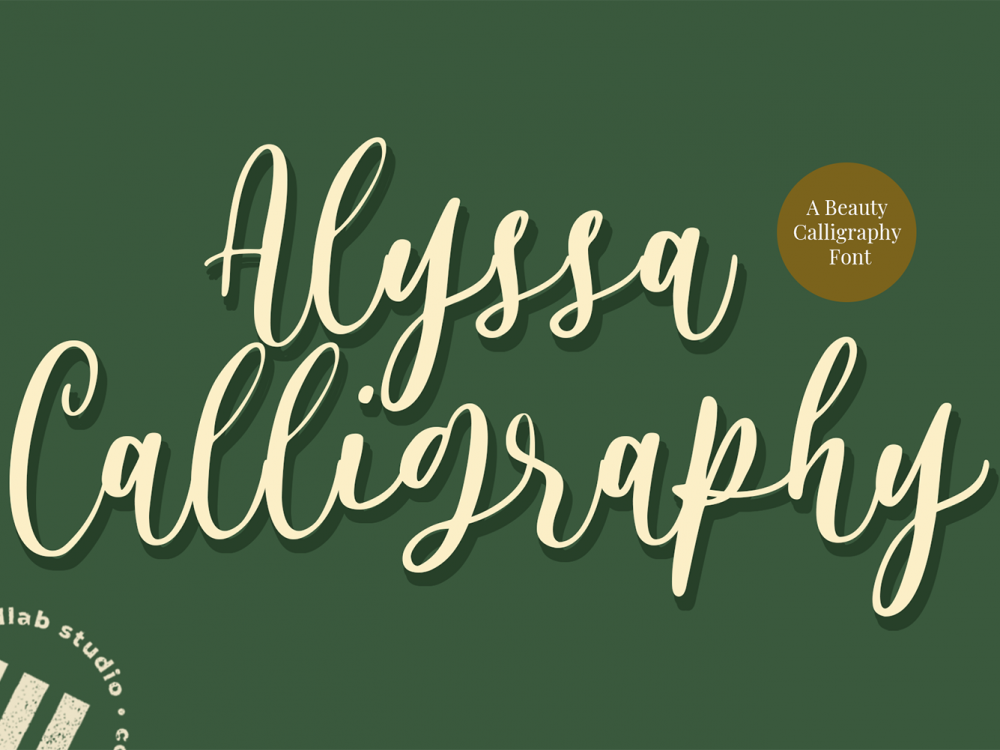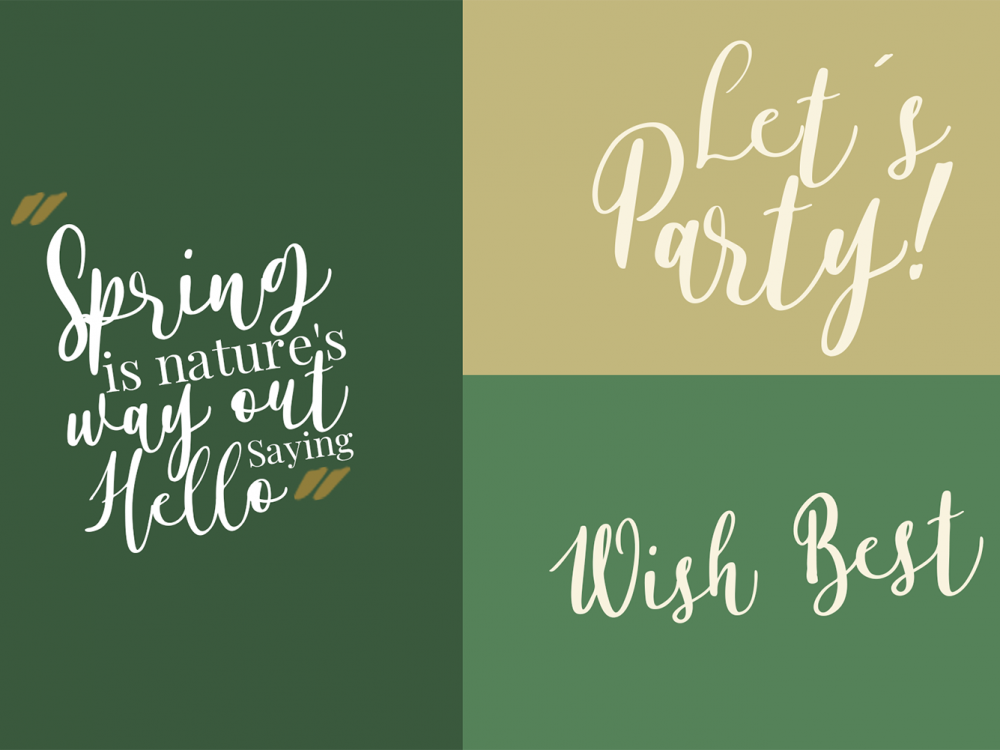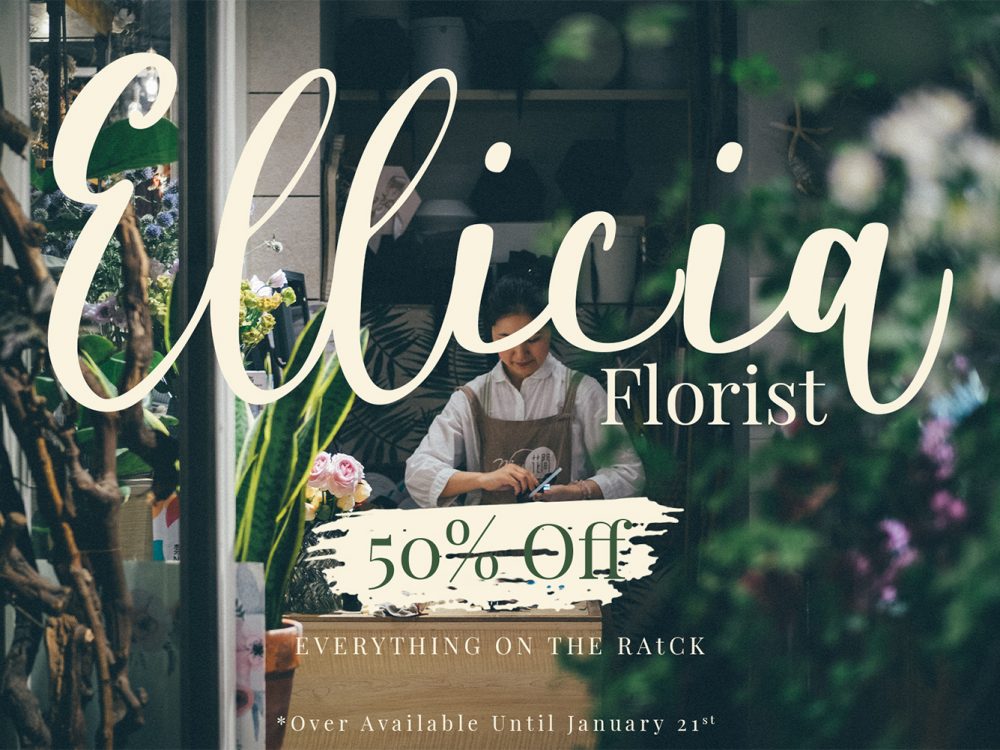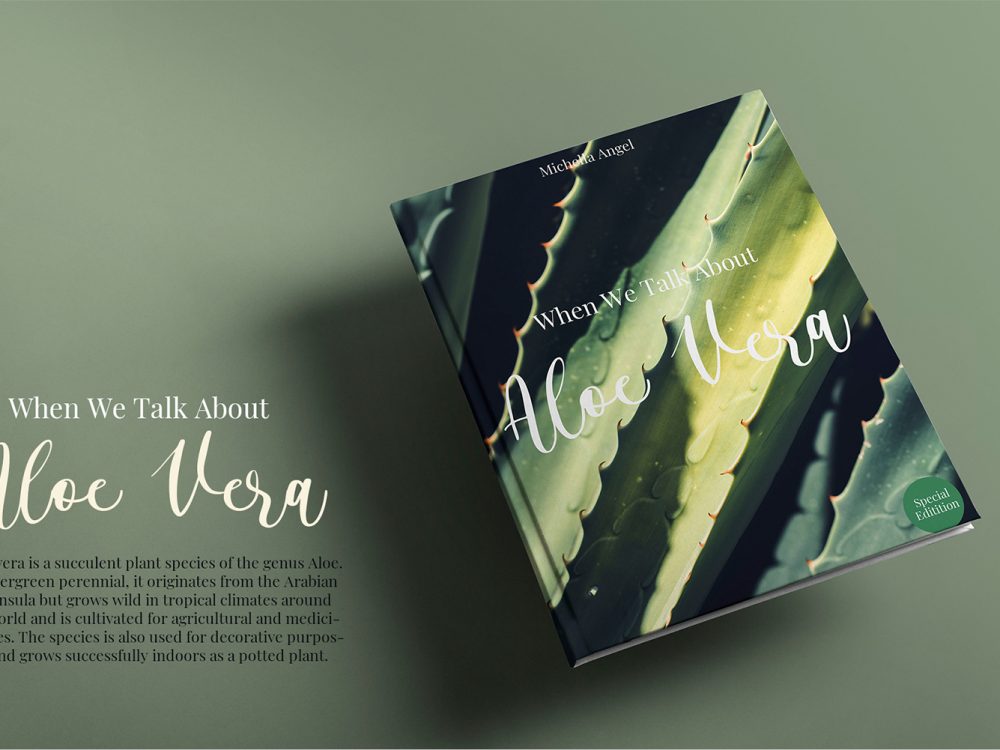
Alyssa Calligraphy Free Font
Alyssa Calligraphy Free Font is a scripted handwritten font that has a calligraphic style and is suitable for creating various design projects. You can use this font to create memorable posters, wedding invitations, cards, branding, flyers, and more. Improve the quality and increase the popularity of your design projects using this font. If you like it don’t forget to check out the full version.